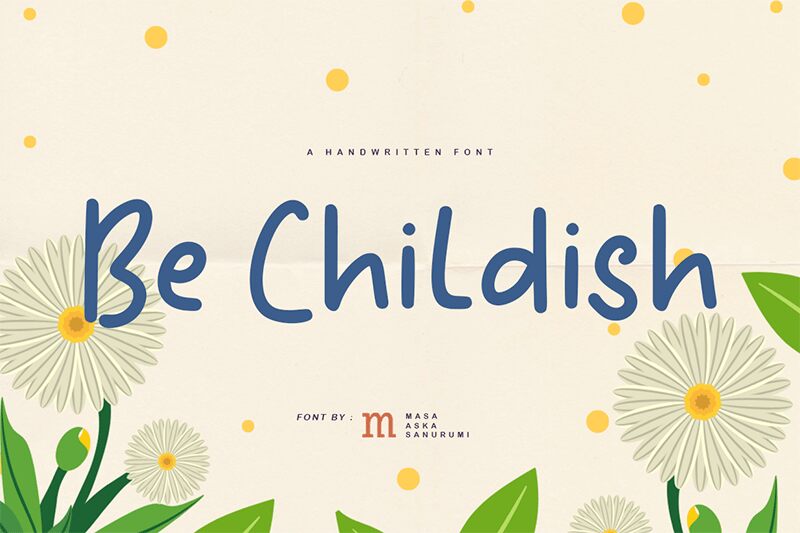
Be Childish, crafted by the imaginative Masa Aska Sanurumi, is a semi-light handwritten font that captures the whimsical charm and playful spirit of a child's scrawl. With its carefree and fluid strokes, this font exudes a casual elegance that is both approachable and aesthetically delightful.
The organic nature of Be Childish lends itself to a myriad of creative projects, from whimsical book covers to engaging children's product packaging. Its handwritten style adds a personal touch to invitations, greeting cards, and branding that seeks a handcrafted feel. The semi-light weight ensures legibility while maintaining an airy, unburdened quality.
Whether you're designing for educational purposes or looking to infuse your project with youthful energy, Be Childish offers versatility without sacrificing character. Embrace its distinctive style to convey innocence, creativity, and joy in your designs.
Be Childish
Masa Aska Sanurumi